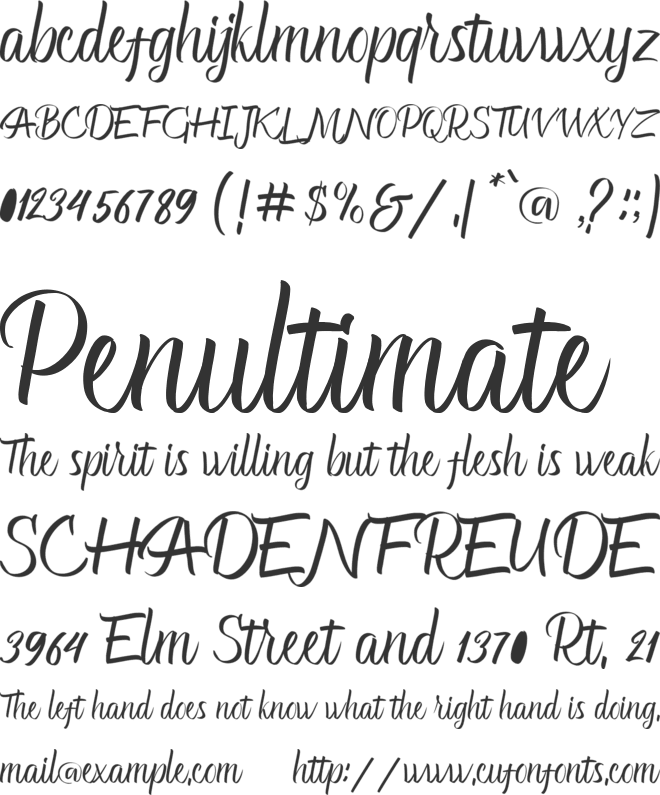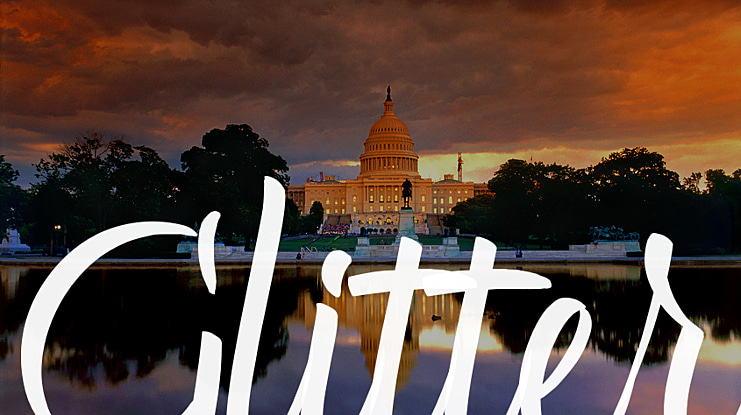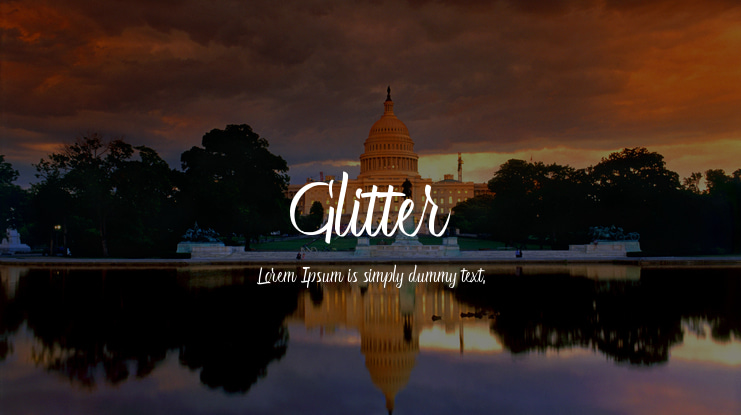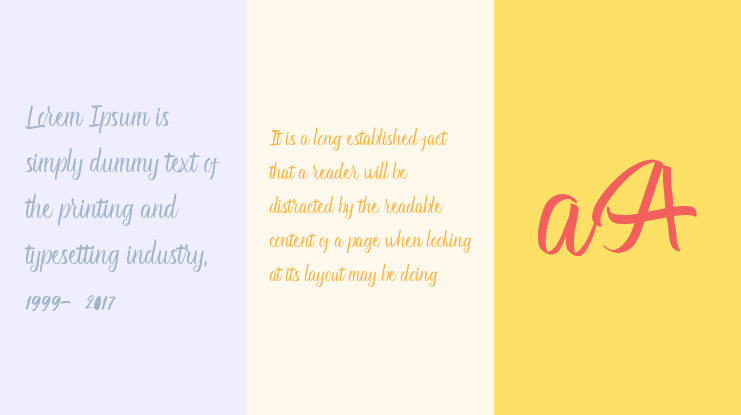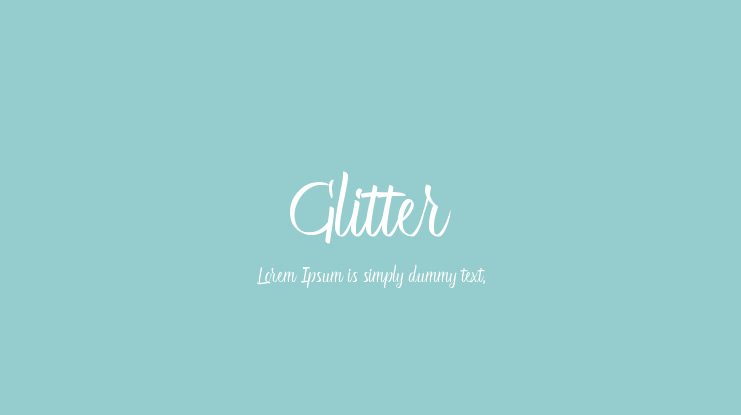
Glitter Font
This font is inspired from handwriting itself, it is suitable for design-themed purposes such as festivals, graduation, weddings, new year and others. https://creativemarket.com/debutstudio/2026645-Glitter-Script-Font-%2830-Off%29